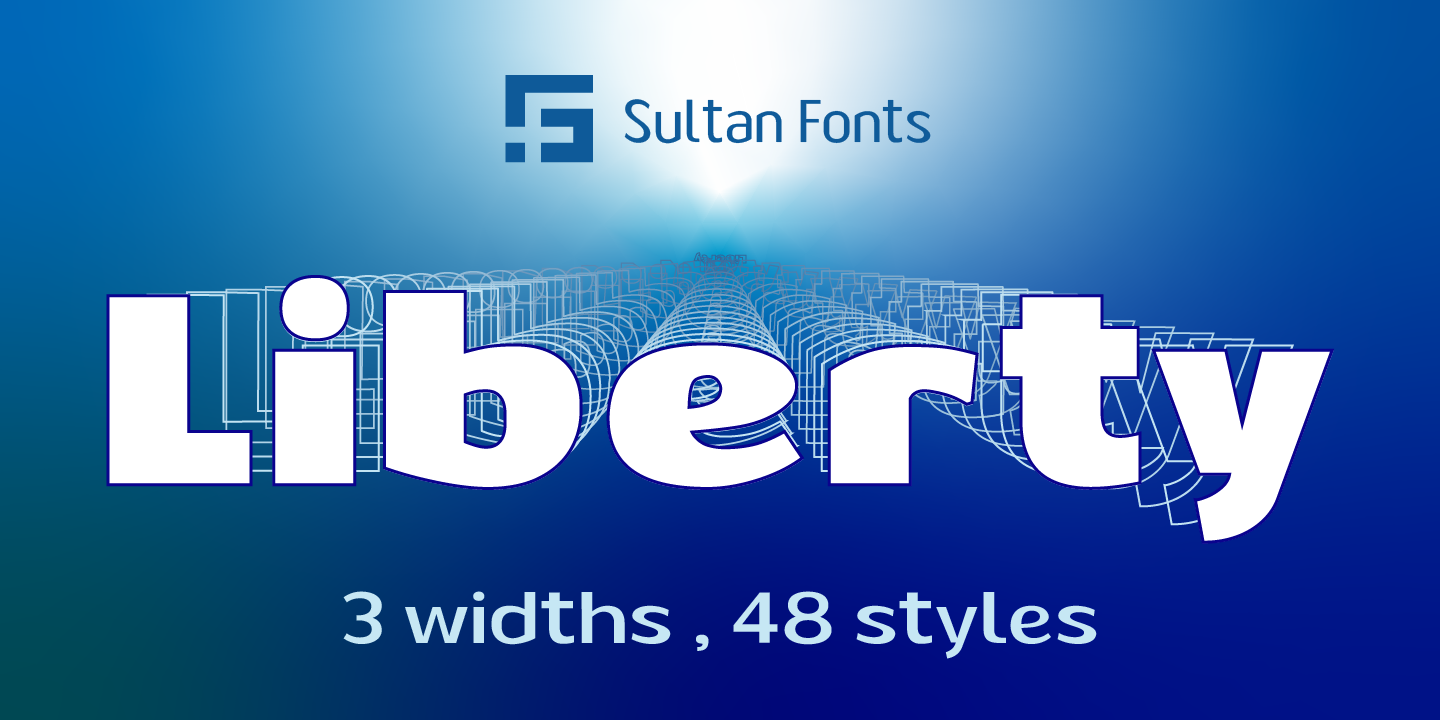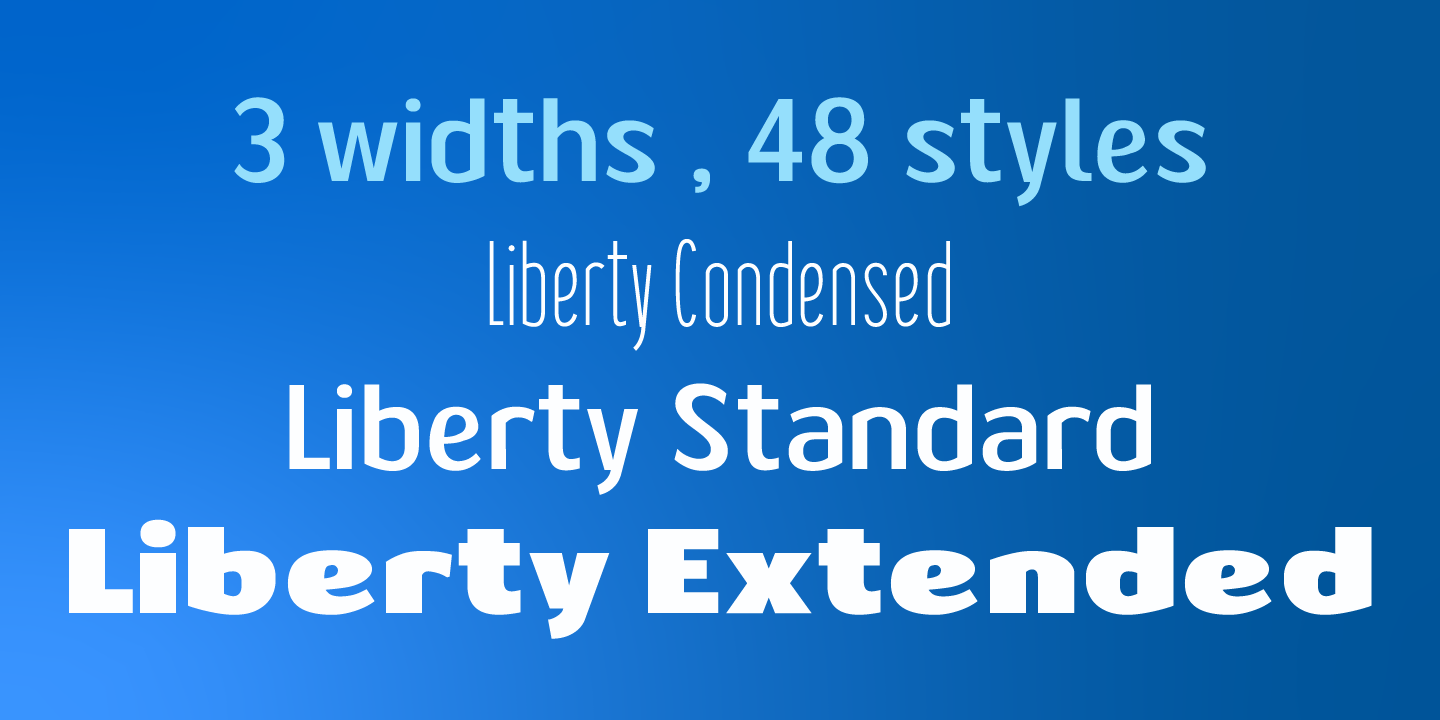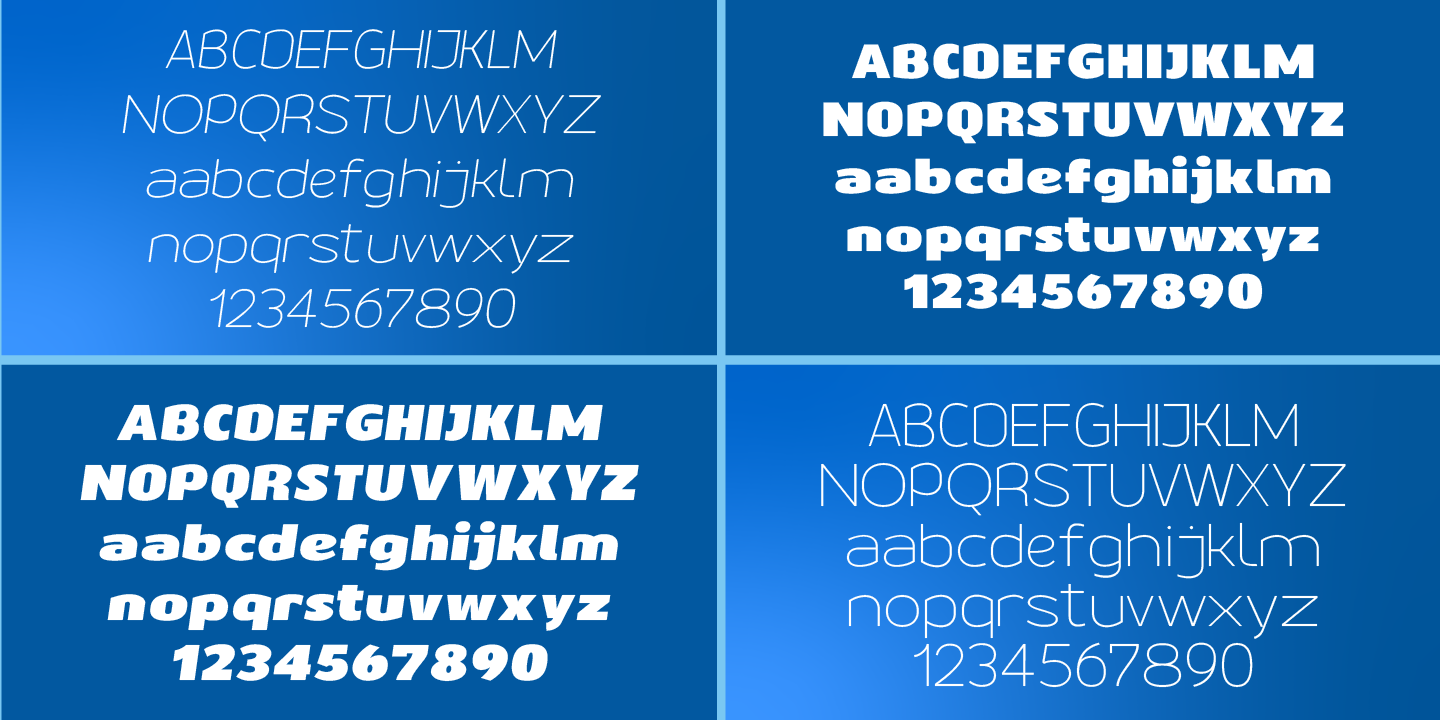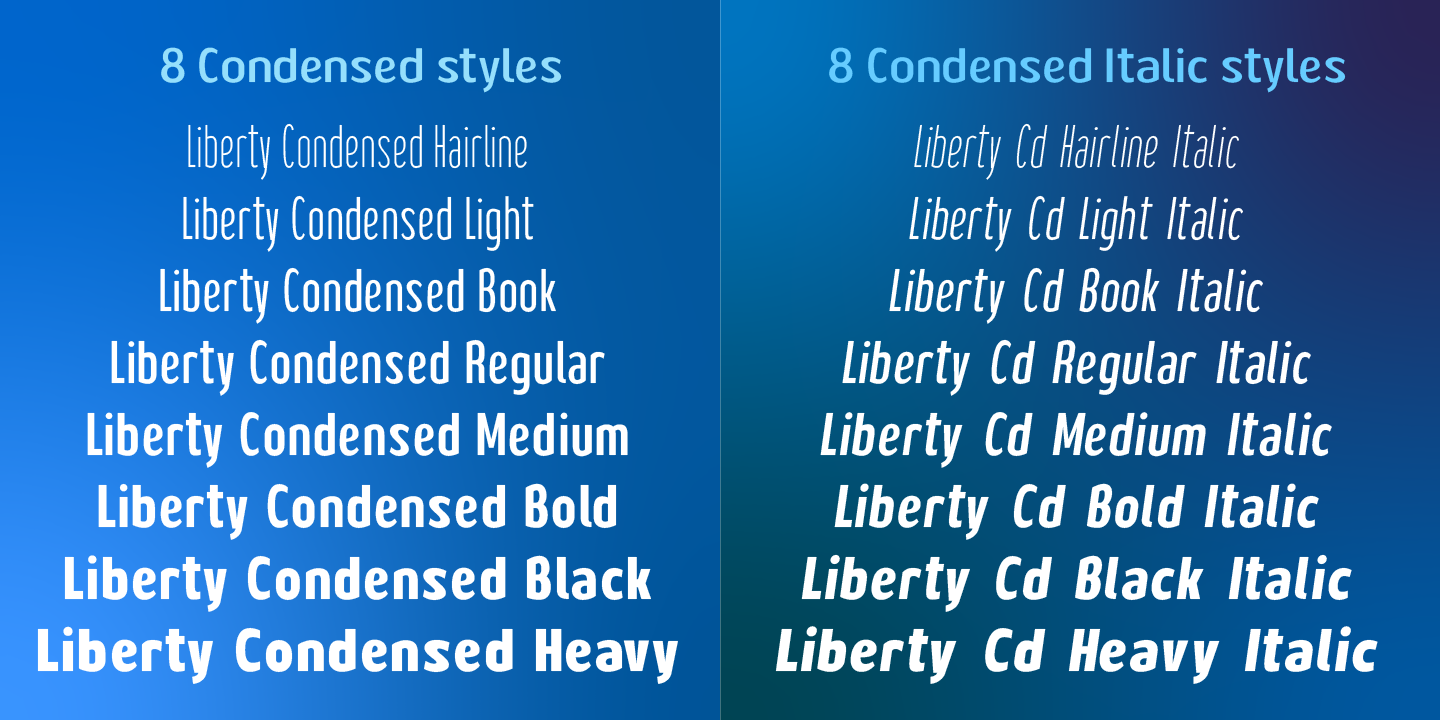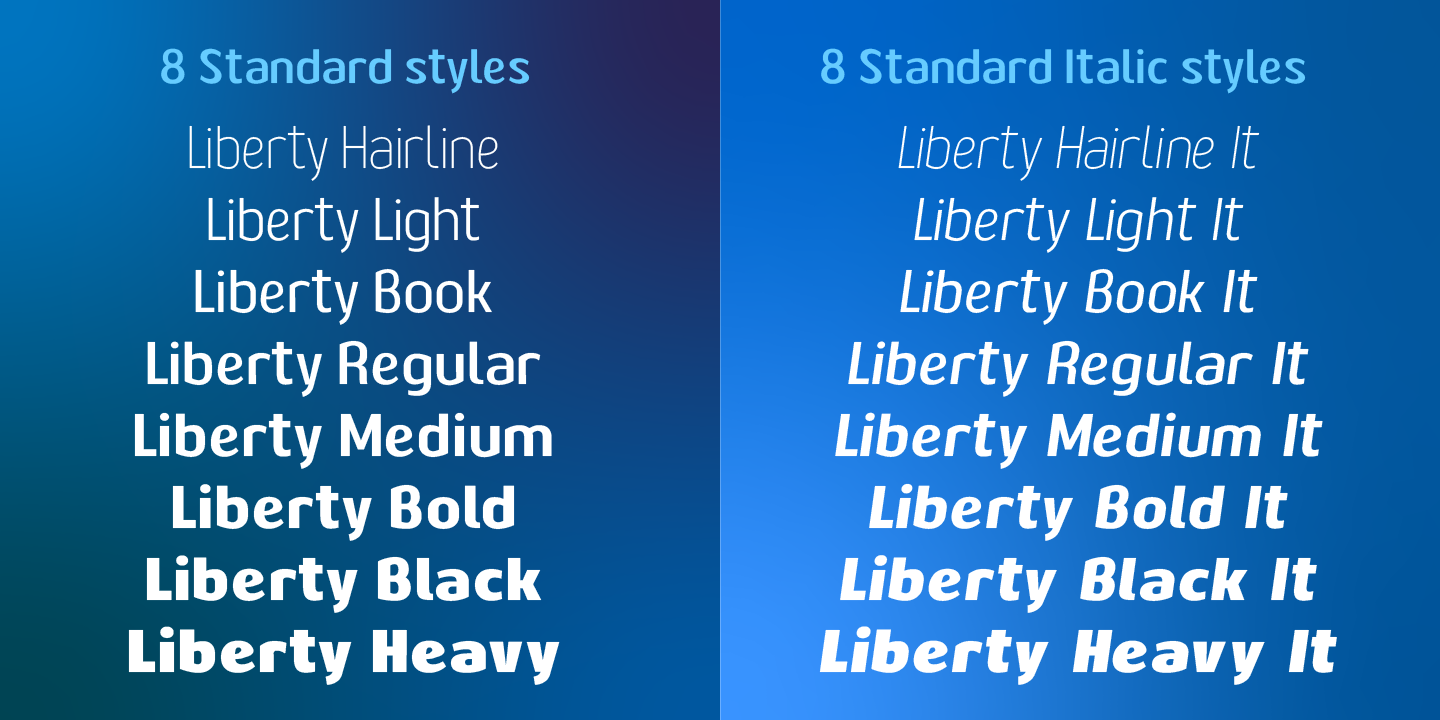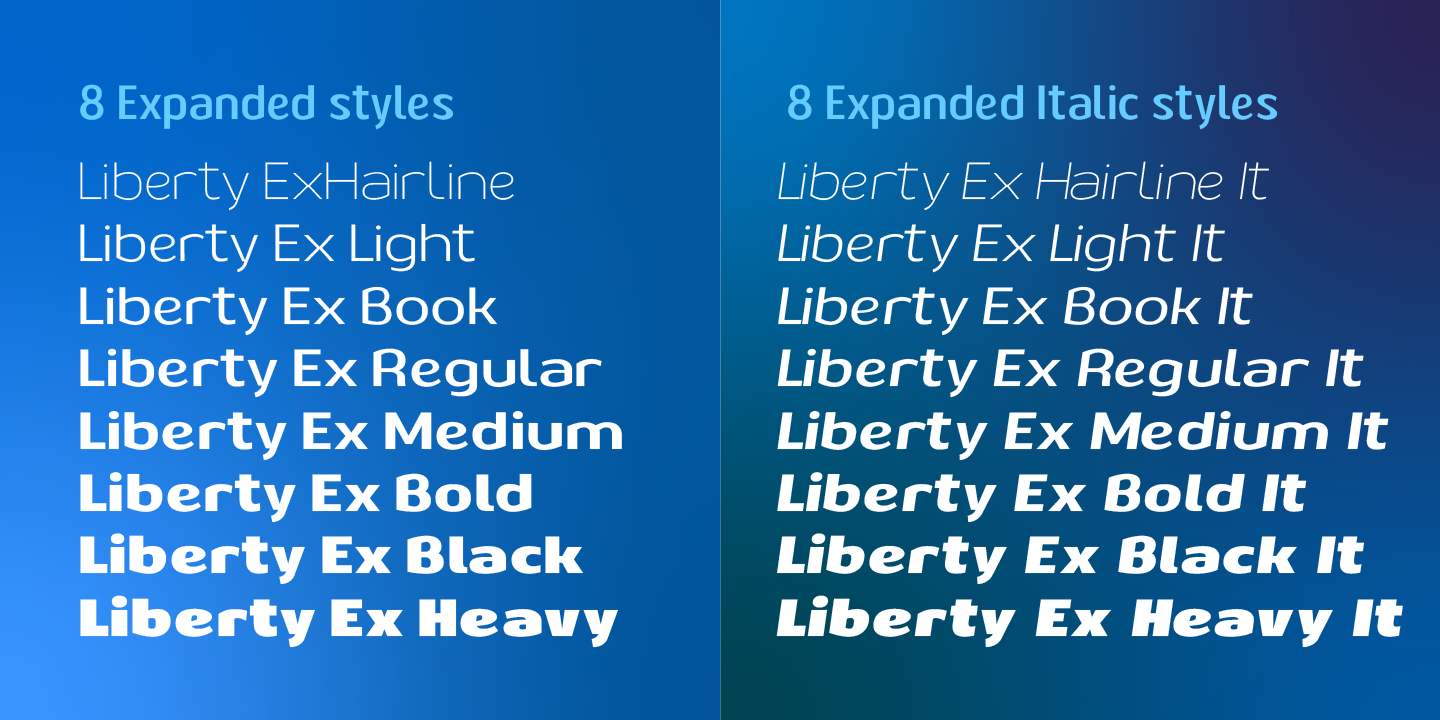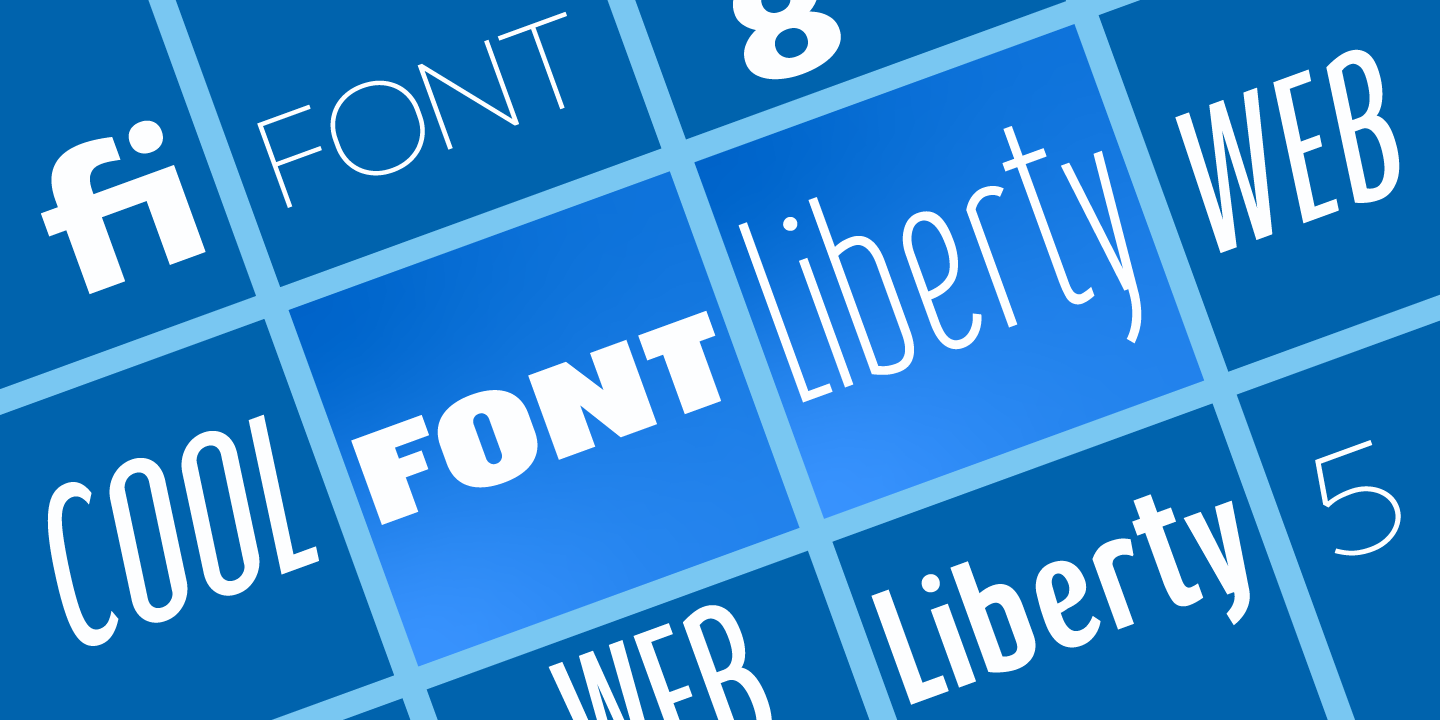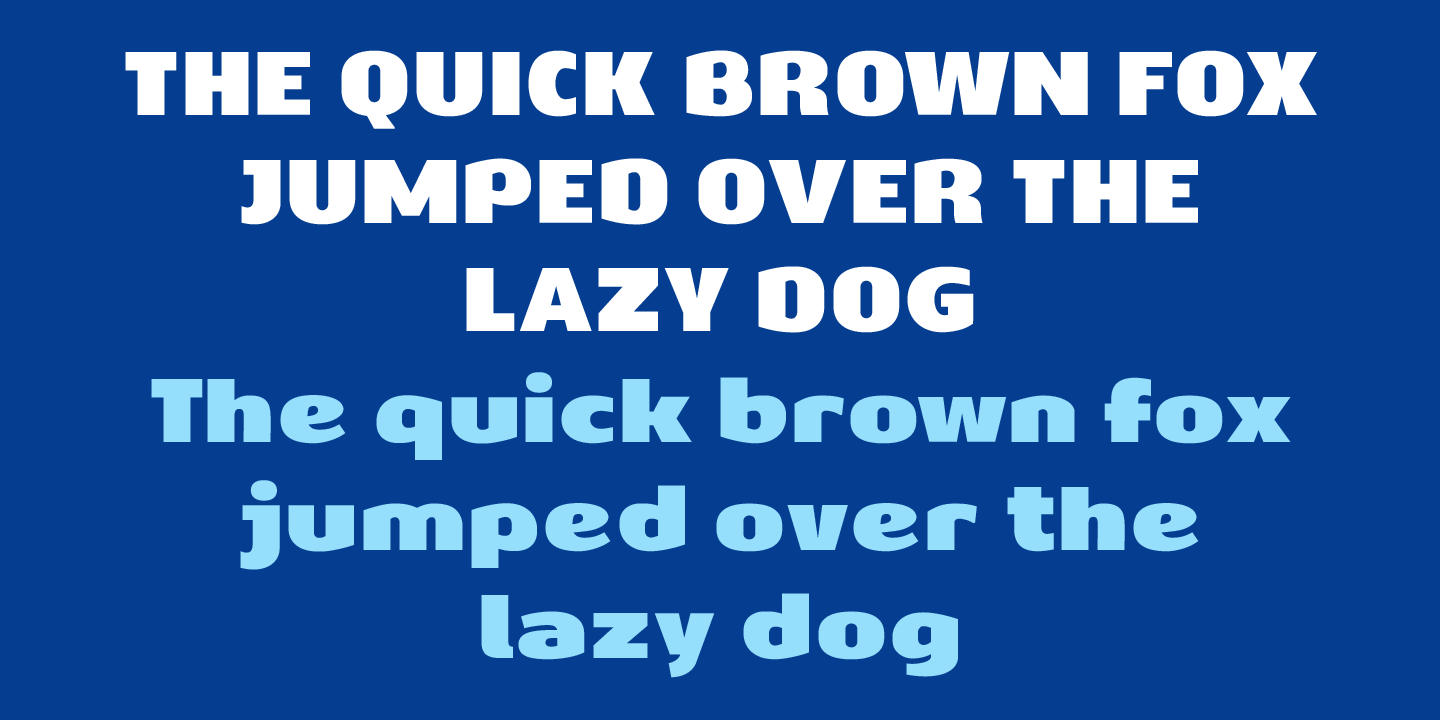
It is a big work that started with Windows in Aden and was redesigned and tuned on an Apple device in Cairo.
Liberty is an active contemporary variable font, complete with a flexible range of cases tailored to responsive layouts.
The font is clear and legible in small sizes, suitable for printing for large texts, web pages, and other visual uses.